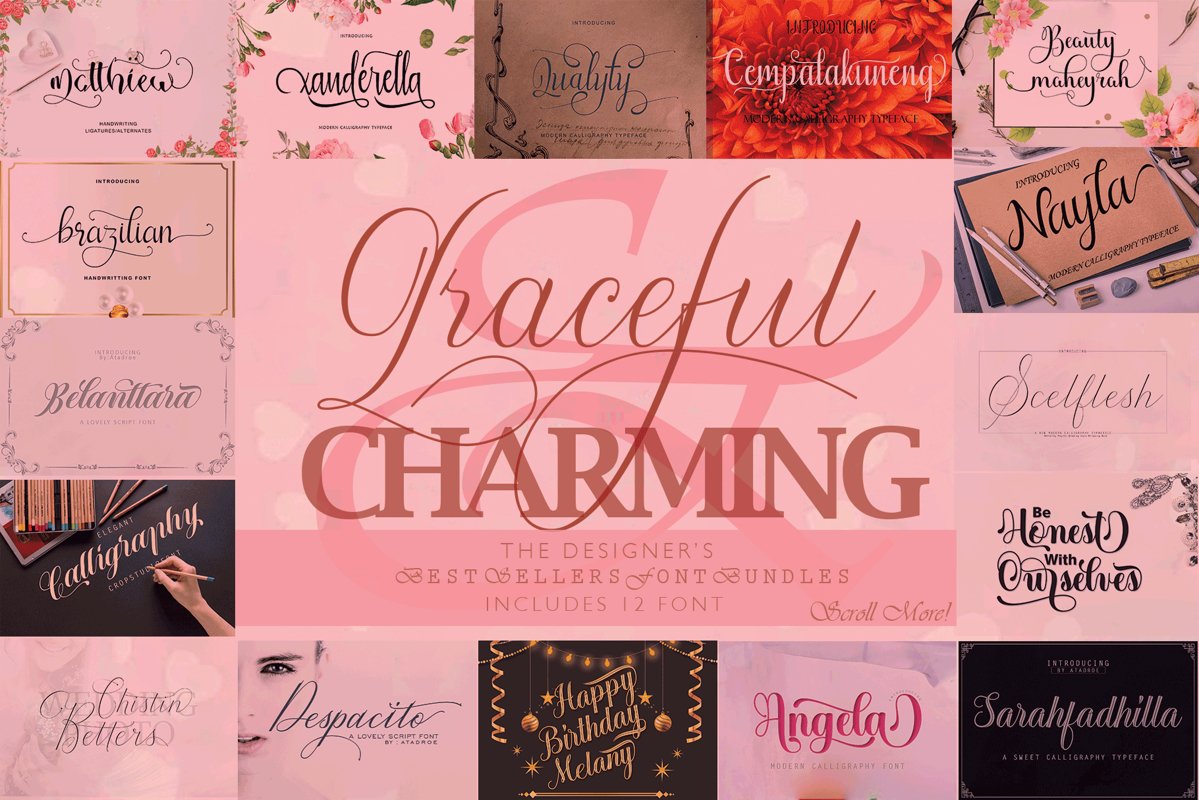
12 graceful charming fonts
xanderella
Sarahfadhilla
Scelflesh
Belanttara
Despacito
Angela
ahmad
Nalya
Qualyty
Beauty maheyrah
matthiew
brazilian
Are you dabbling in design, but don't want to spend a lot on tools of the trade, just yet? Are you a pro that has seen one too many font bundles that weren't worth the money? This collection is for you. This batch features fonts, that you will come to know and love, and use in plenty of future projects -- for very little of your hard-earned cash!
Handmade fonts are the new trend when it comes to logos, displays, headers, invitations, save the dates, weddings, titles, web layouts and branding, etc
These fonts looks amazing in all caps with wide-set spacing if you want to try a classy look. Or go for something classy and timeless in all caps or all lowercase. We had the most fun with these fonts on branding projects! TRY IT!